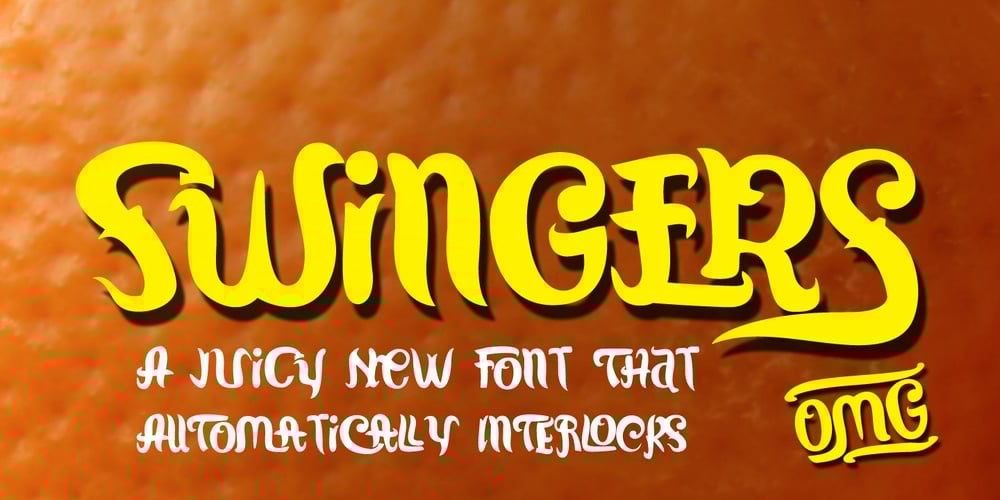
Swingers
Swingers font
Swingers Font Family was designed by published by AdultHumanMale. Swingers contains 1 styles and family package options. Swingers is a curly, fun, cartoonish display font. I wanted it to look light, but loud, so it can yodel from Posters and Headlines. It has over 300 glyphs, several variations on the standard alphabet and all those extra pesky foreign features. OpenType coded, It has various letter pairings that interlock automatically to create a more randomized, bespoke feel to your copy. It also has tons of extra characters and other combinations available directly through your glyphs palette. Play around with it, break it, like it, buy it.